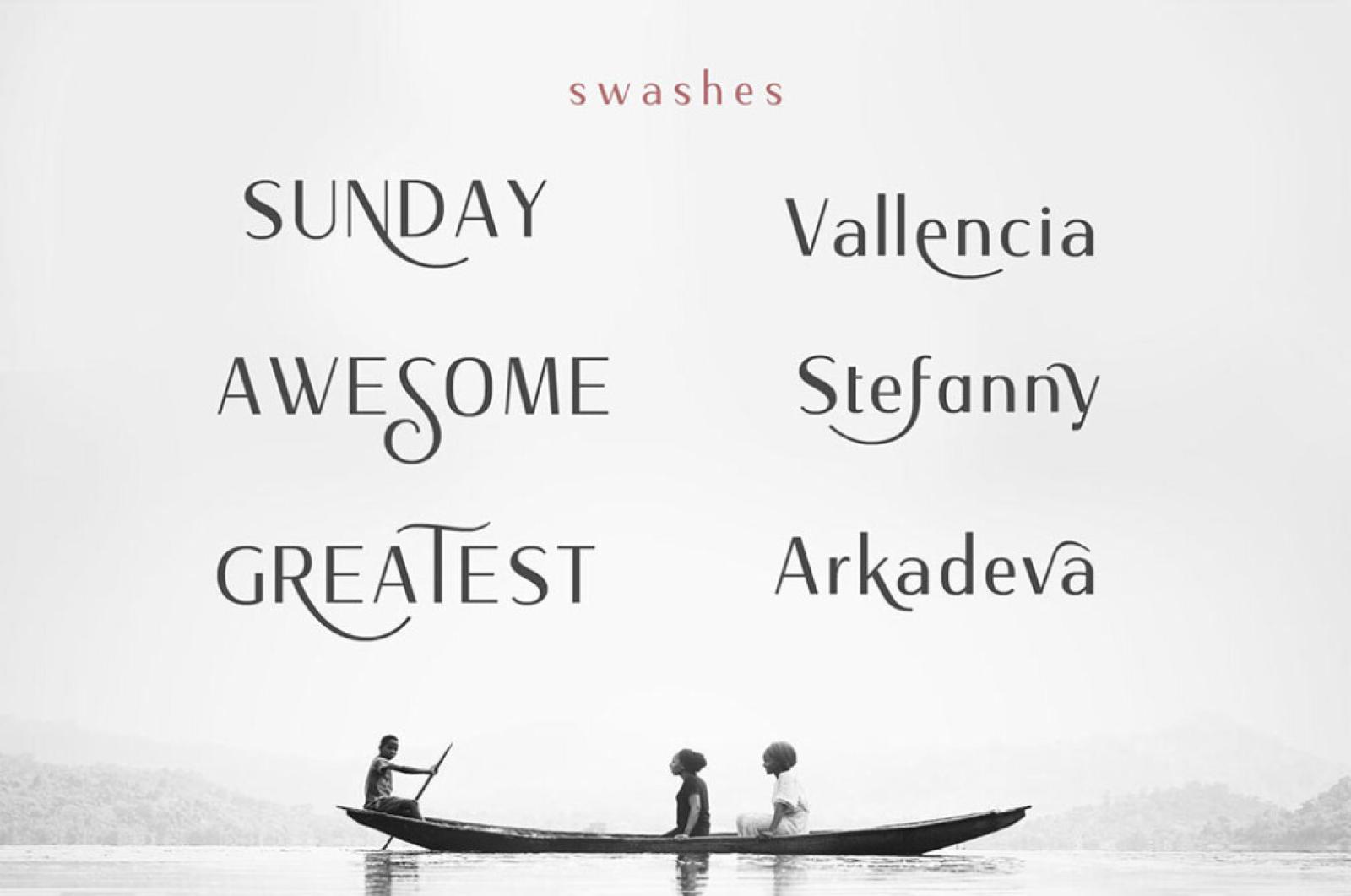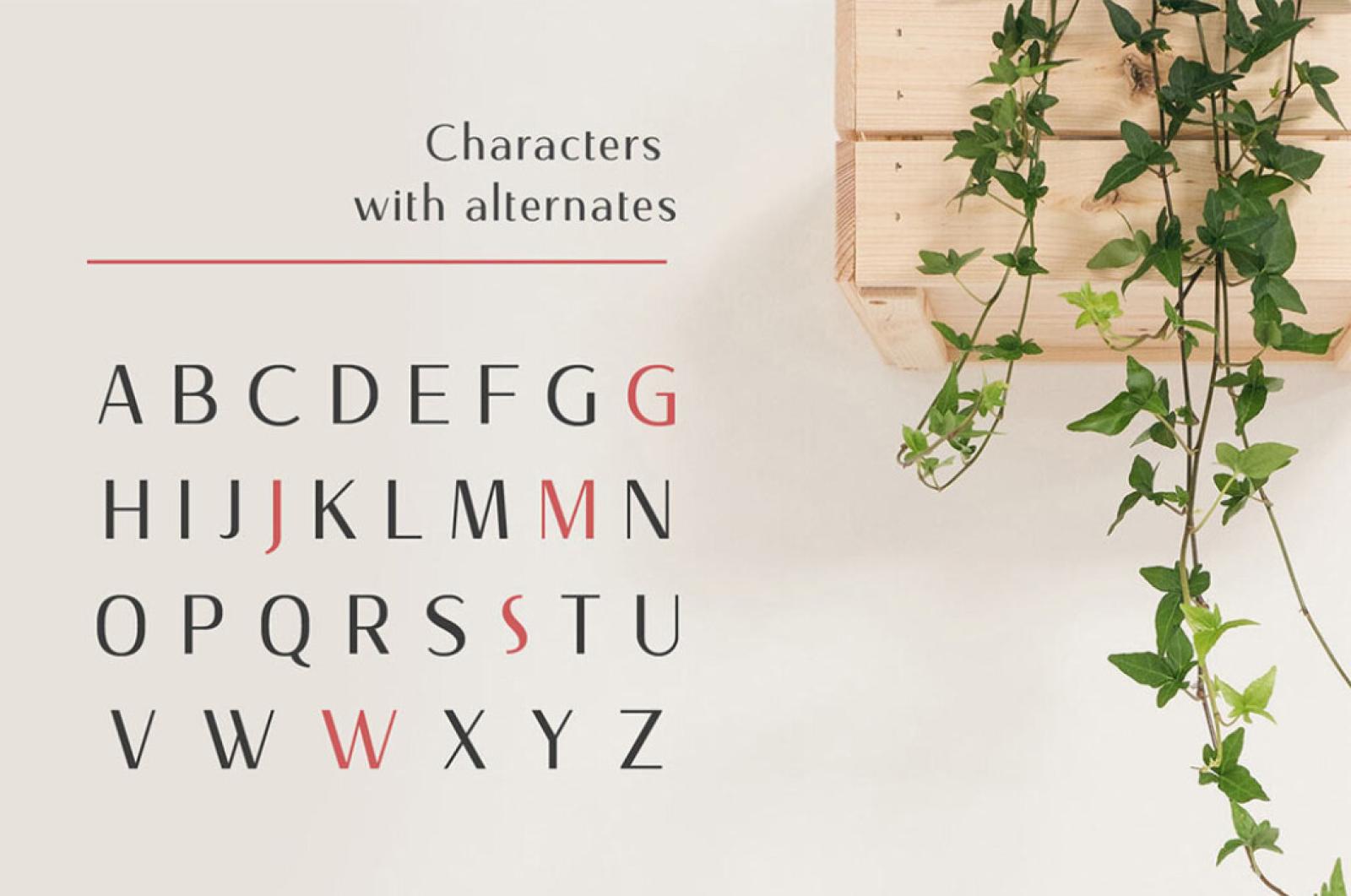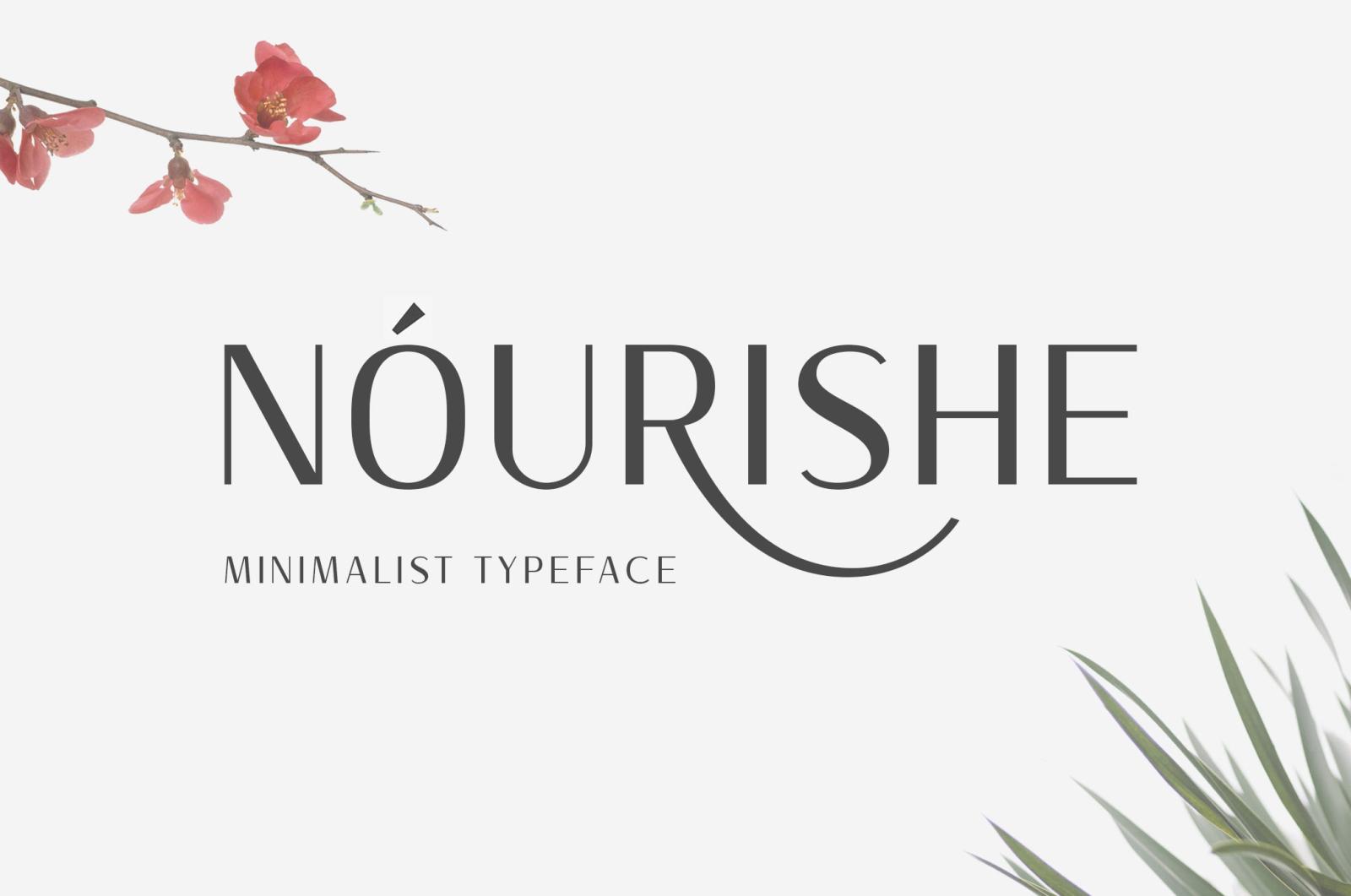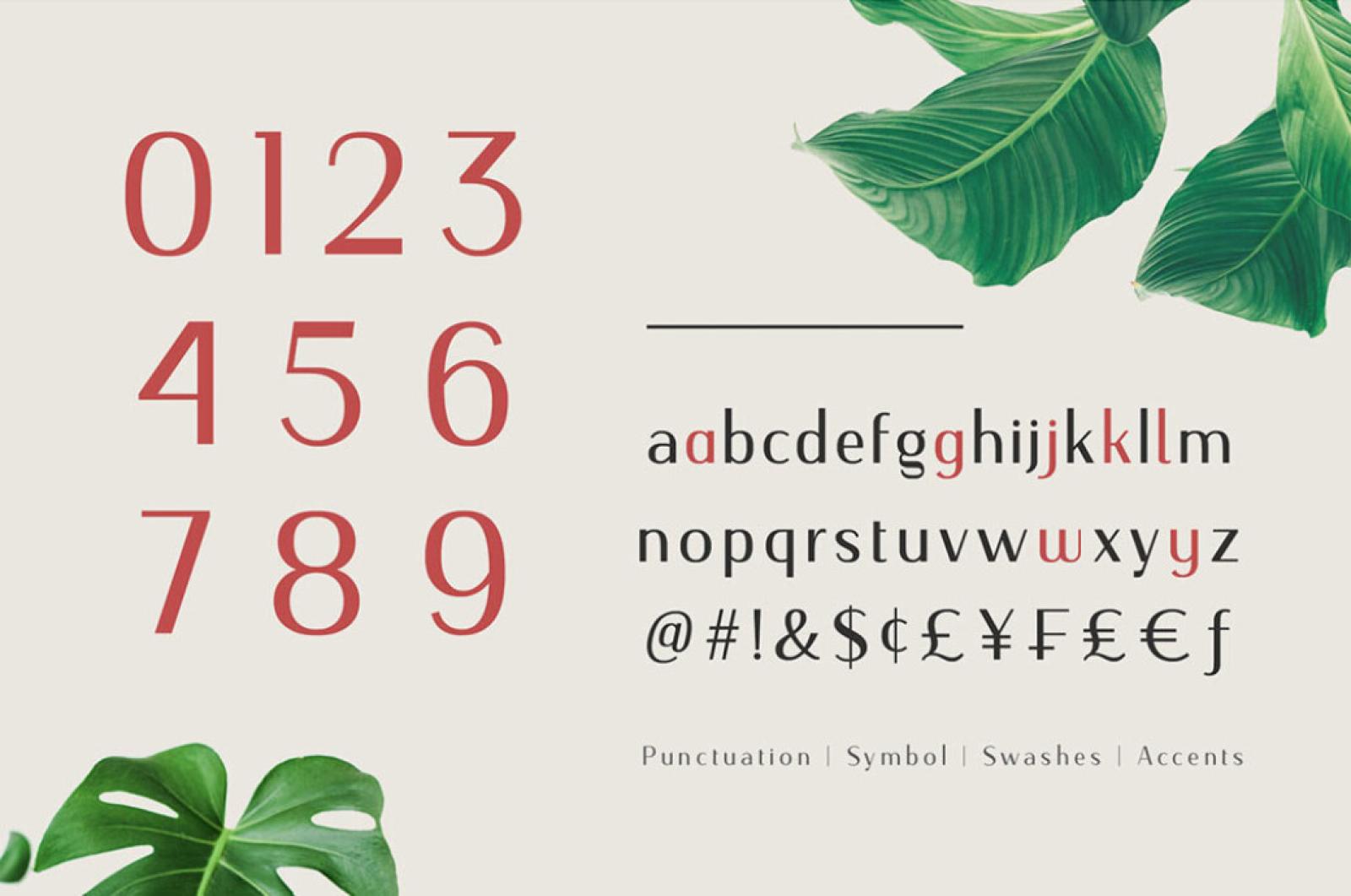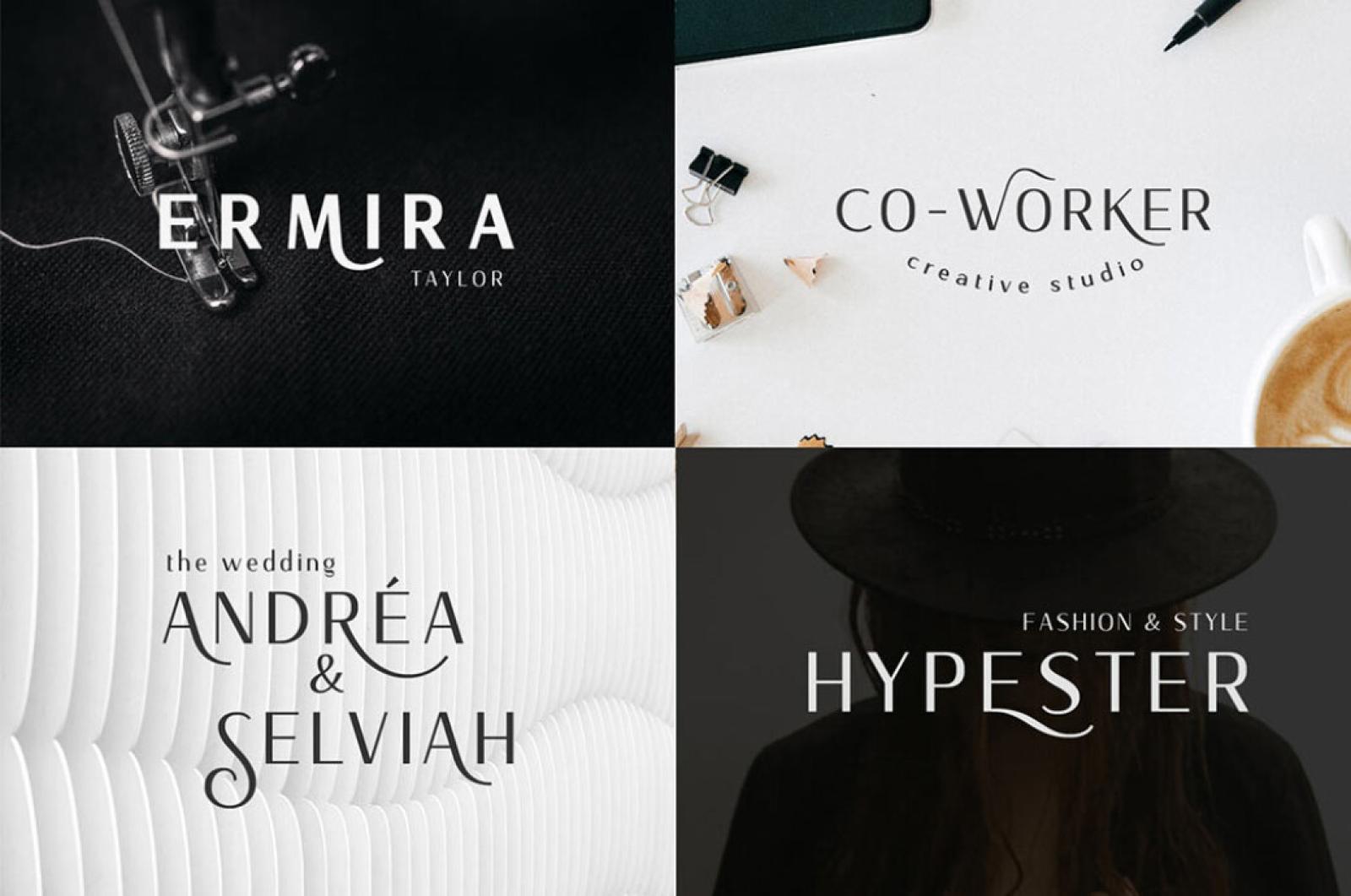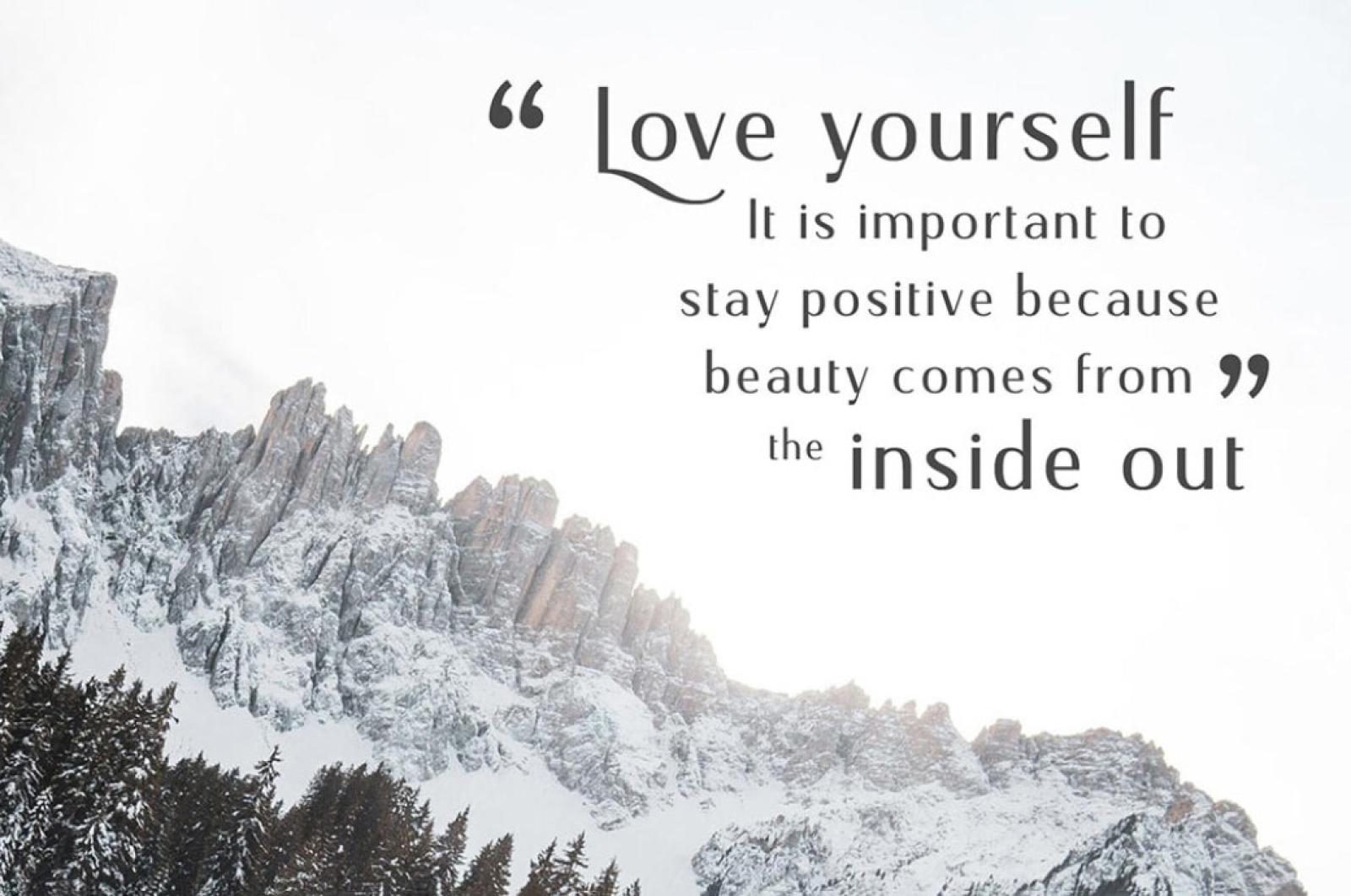
Nourishe Sans Serif Font
Introducing you the minimalist font, made with the combination of duo-line. This sans serif font has something philosophic about it: clear lines and tender turns so poetic understatement.
Nourishe is here to make your designs elegant with gentle curves and strokes. Having the open-type features, 3 styles, and swashes included, it doesn't leave you some time to worry about anything except your work. And multi-language support will broaden your linguistic/design horizons. Obtain the sophisticated look of your branding, editorial design, logotype composition or social media post tool!